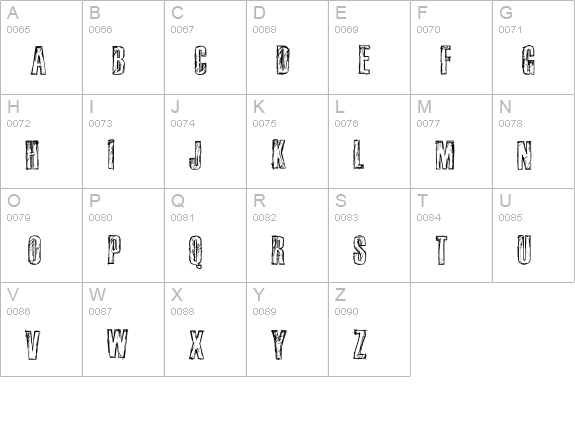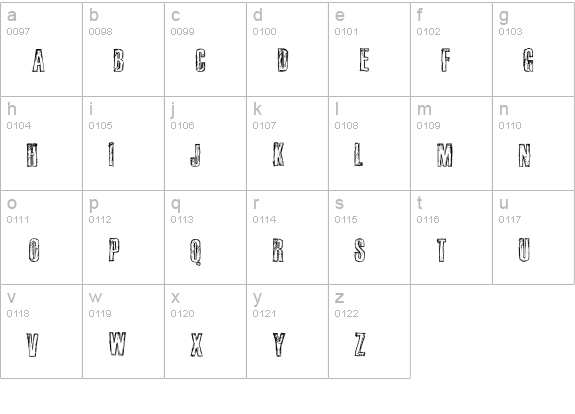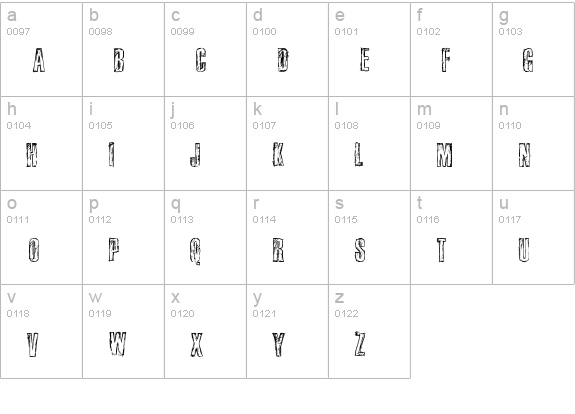
fail Font Details
Introducing Fail Font - a quirky and unconventional typeface that adds a touch of whimsy to any project. With its playful design and unique characteristics, Fail Font is perfect for grabbing attention and making a statement. This font embodies a sense of fun and creativity, making it ideal for projects that require a bold and distinctive look. The best part? Fail Font is completely free to download at FontsMarket.com. That's right, you can add this eye-catching font to your collection without spending a dime. So why wait? Give your designs a playful edge with Fail Font today!